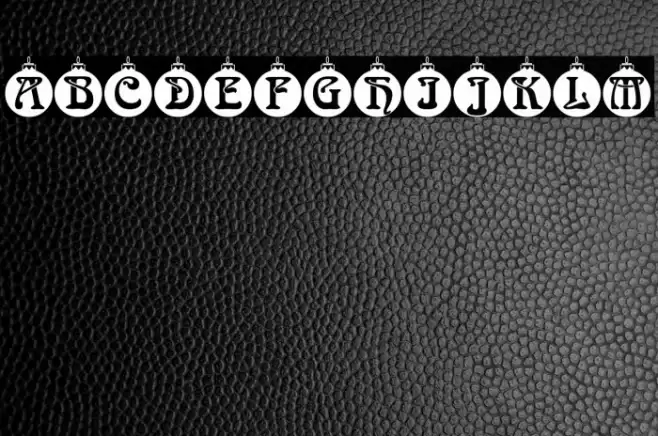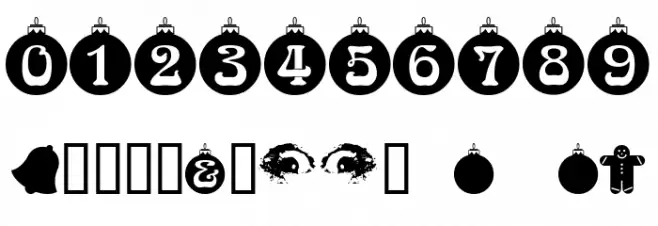
Christbaumkugeln Font
Christbaumkugeln Description
This decorative font features characters enclosed within Christmas ornament shapes, giving it a festive and playful appearance. The uppercase and lowercase letters are distinct, with a whimsical style that includes subtle serifs and unique curves. The numbers and special characters maintain the same ornamental theme, enhancing the overall holiday aesthetic. The font's design is bold and eye-catching, making it ideal for seasonal projects. Its playful nature and thematic elements make it perfect for holiday cards, festive banners, and other Christmas-themed designs.
A festive, decorative font with characters inside Christmas ornaments from Uncategorized fonts.
- Proposed Projects: Ideal for holiday cards, Christmas banners, festive invitations, and seasonal marketing materials.
- Use Case: Headlines, Logos, Decorative text